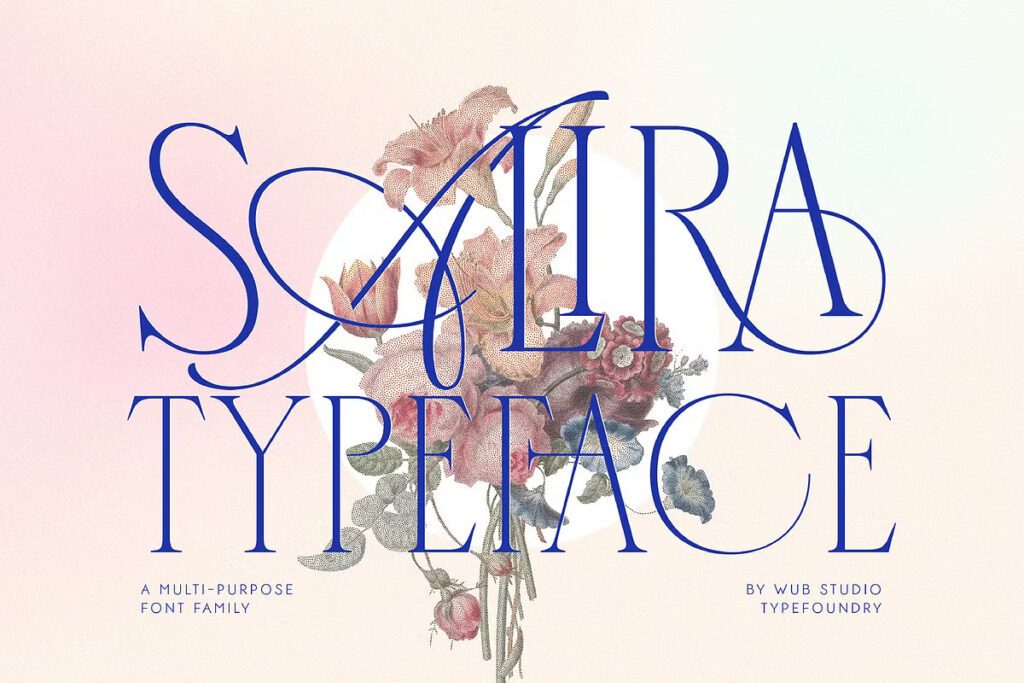
Salira Typeface: A Versatile Font Duo for Unique Designs
Choosing the right font can make or break your design project. Whether you’re working on branding, logos, or creative artwork, the Salira Typeface is an excellent choice to elevate your visuals. This versatile font duo offers both serif and sans serif options, providing a multi-purpose solution for designers looking for flexibility and creativity.
What Makes Salira Typeface Stand Out?
The Salira Typeface isn’t just another standard font family. Its unique blend of serif, script, and sans serif makes it an exceptional choice for a variety of design needs. Here are some key features that set it apart:
Font Duo Flexibility:Salira offers both serif and sans serif styles, giving designers the ability to mix and match for diverse creative projects. This combination ensures your design stands out, whether it’s for web, print, or branding.
Unique Serif Design:The serif version of Salira includes a blend of script elements, making it more than just a traditional serif font. This design creates a more personalized and artistic appearance, ideal for eye-catching logos or standout titles.
Extensive Ligatures:One of Salira’s strongest features is its vast collection of ligatures, particularly in the serif style. These ligatures are perfect for creating custom initials or logos, adding a sophisticated touch to your branding efforts.
Professional & Creative:Whether you’re aiming for a corporate identity or a playful brand look, Salira’s versatile nature makes it easy to adapt to different design themes. The font’s elegance and uniqueness work well in both formal and casual contexts.
How to Use the Salira Typeface in Your Designs
With Salira Typeface, you have endless possibilities for creating unique designs:
Logo Design: Thanks to the special ligatures, Salira is perfect for crafting custom logos that stand out.
Branding: The multi-purpose serif and sans serif options make it great for a cohesive brand identity across platforms.
Creative Projects: Add a distinctive touch to posters, invitations, or social media graphics by using Salira’s script-infused serif fonts.
Why Choose Salira Typeface?
Uniqueness: Its mix of script, serif, and sans serif elements ensures your designs will have a unique, artistic edge.
Easy to Use: With its variety of ligatures and font options, Salira is simple to incorporate into any project, providing a hassle-free design experience.